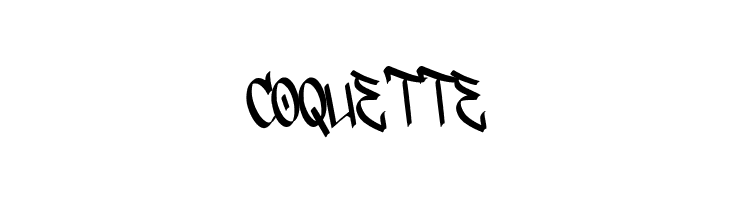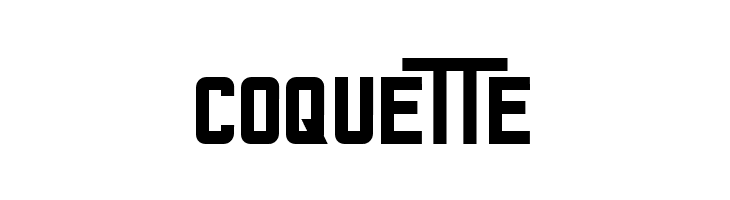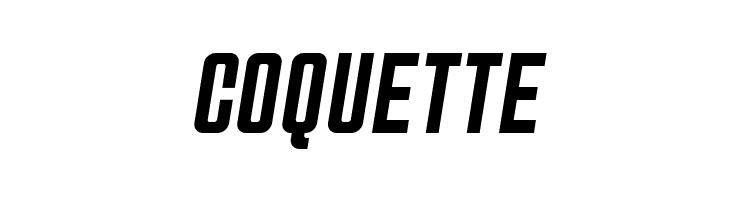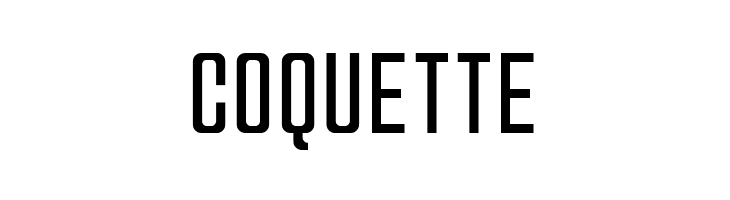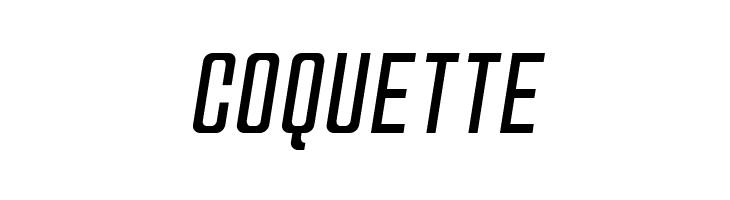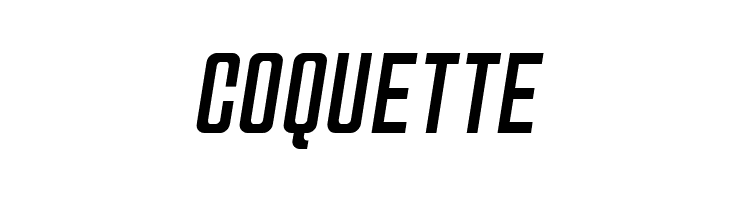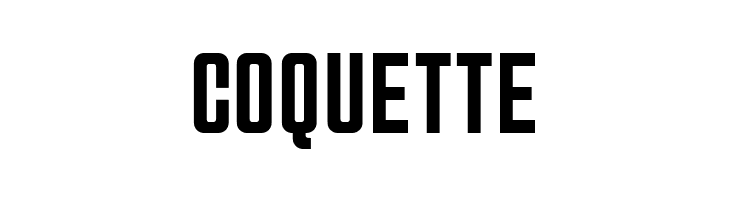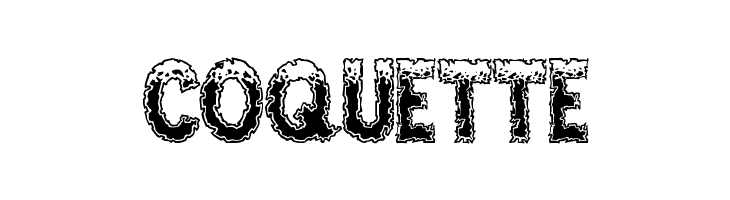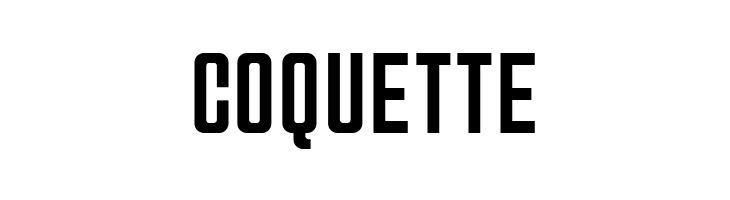
A bold, modern font with geometric shapes and strong visual impact.
A bold, distressed font with a rugged, grunge-like appearance.
A bold, graffiti-inspired font with sharp, angular lines and dynamic energy.
A bold, geometric font with strong, thick strokes for a modern and impactful look.
A bold, italic, and modern font with a dynamic and energetic style.
A modern, italic font with a sleek, narrow design and tight character spacing.
A modern, geometric sans-serif font with a sleek, condensed design.
A modern, italic, and condensed font with clean lines and uniform stroke weight.
A bold, geometric font with a modern and clean aesthetic.
A bold, modern sans-serif font with a condensed and geometric style.